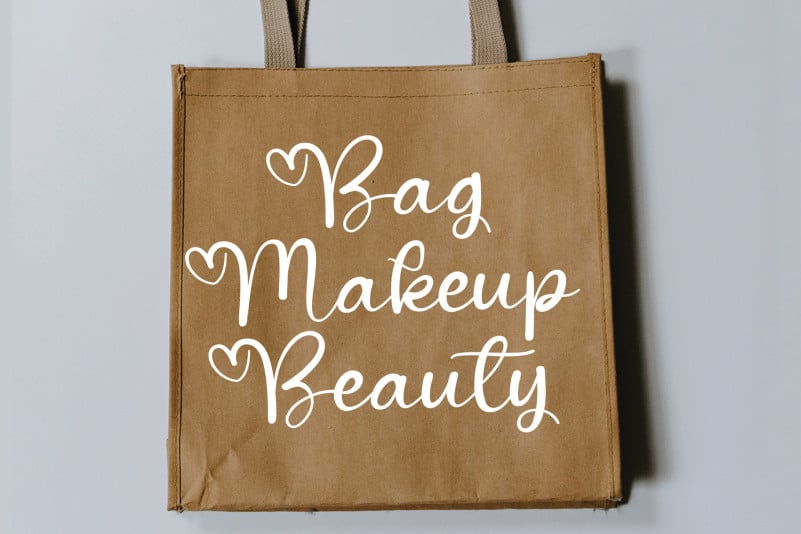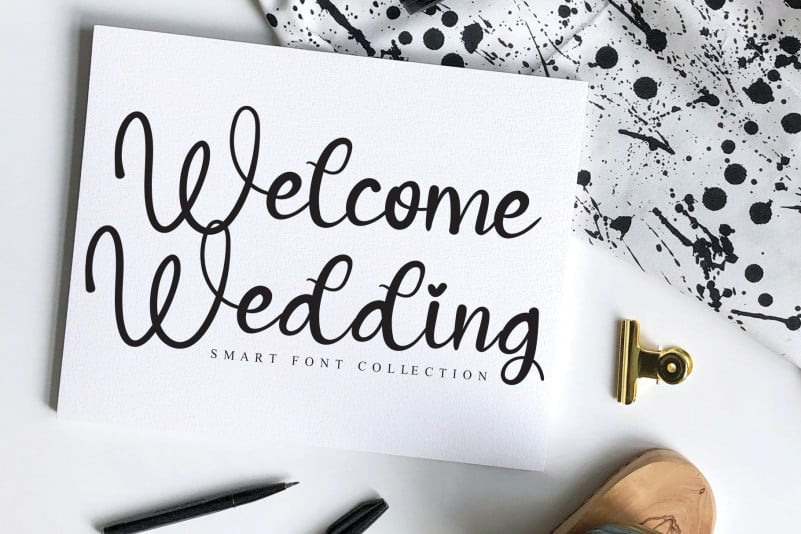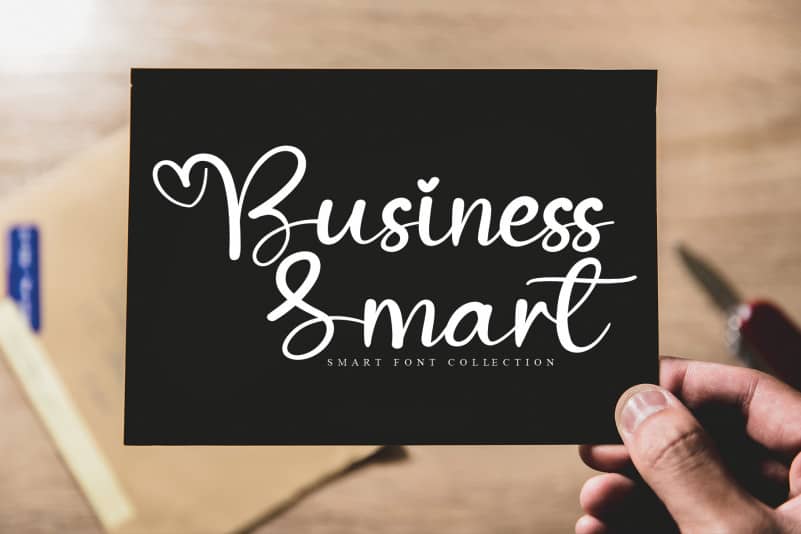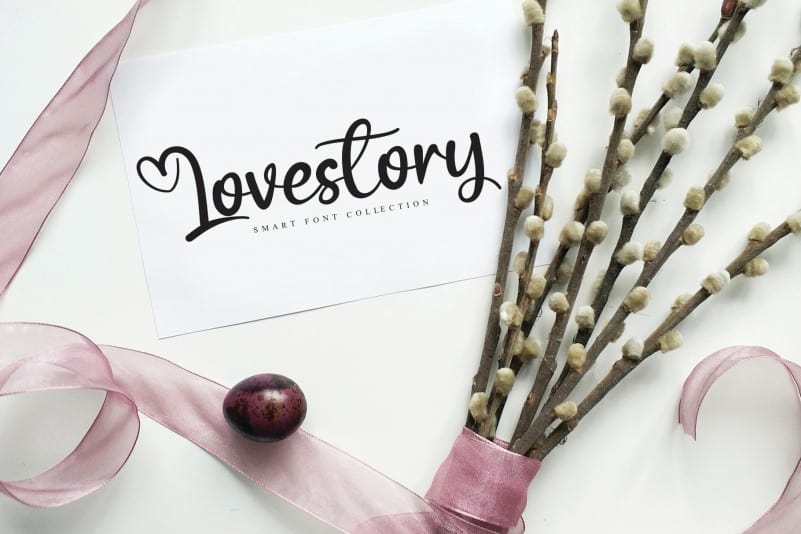
Hello Holiday Calligraphy Font
Introducing Hello Holiday Calligraphy Font – The latest style letters are perfect for wall displays, wedding invitations, social media post logos, advertisements, product packaging, product designs, labels, photography, watermarks, invitations, stationery,and any project that requires taste handwriting.